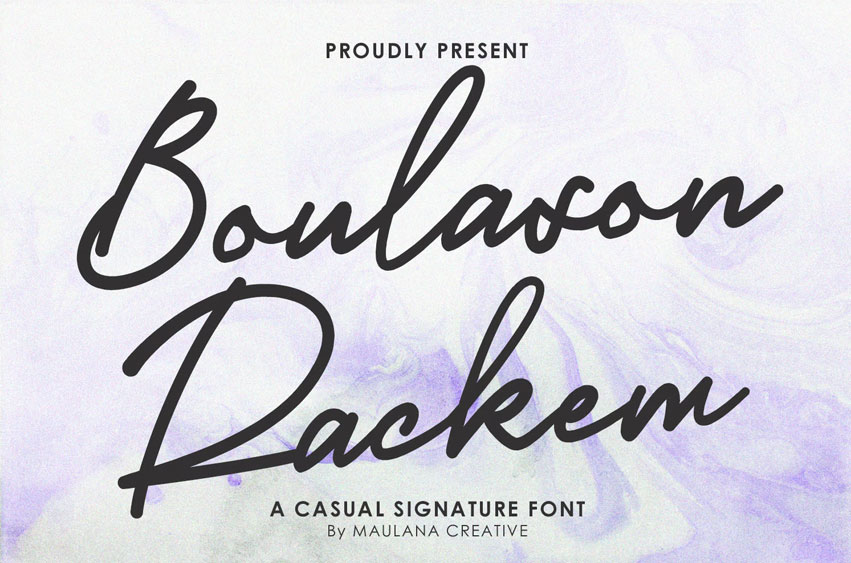
Boulason Rackem Font: Give your designs an authentic handcrafted feel. “Boulason Rackem Casual Monoline Signature Font” is perfectly suited to stationery, logos, and much more. Include alternative characters and ligature characters.
- Ligature and Alternate